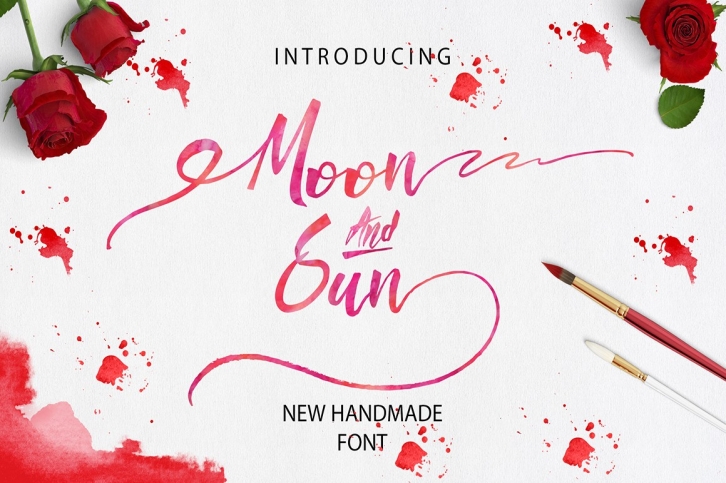
Moon & Sun is a beautiful font that was designed by Onlytheoriginals. It's a great choice for designers and creatives who need such a font. It was released on September 27, 2016 and the file size is 13.99 MB. Moon & Sun may give a more youthful, expressive and casual look to your project. It is a very beautiful, refined, elegant, and high-quality font.